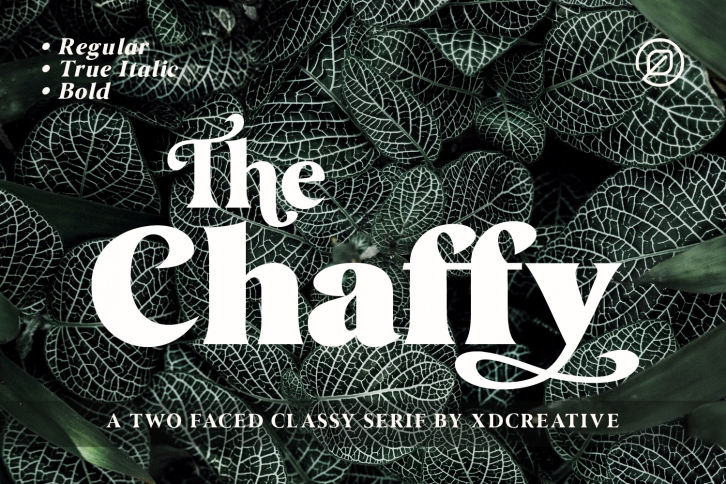
The Chaffy is a classy and bold thick lettered serif font. It will add a luxury spark to any design project that you wish to create! This font is PUA encoded which means you can access all of the amazing glyphs and ligatures with ease!